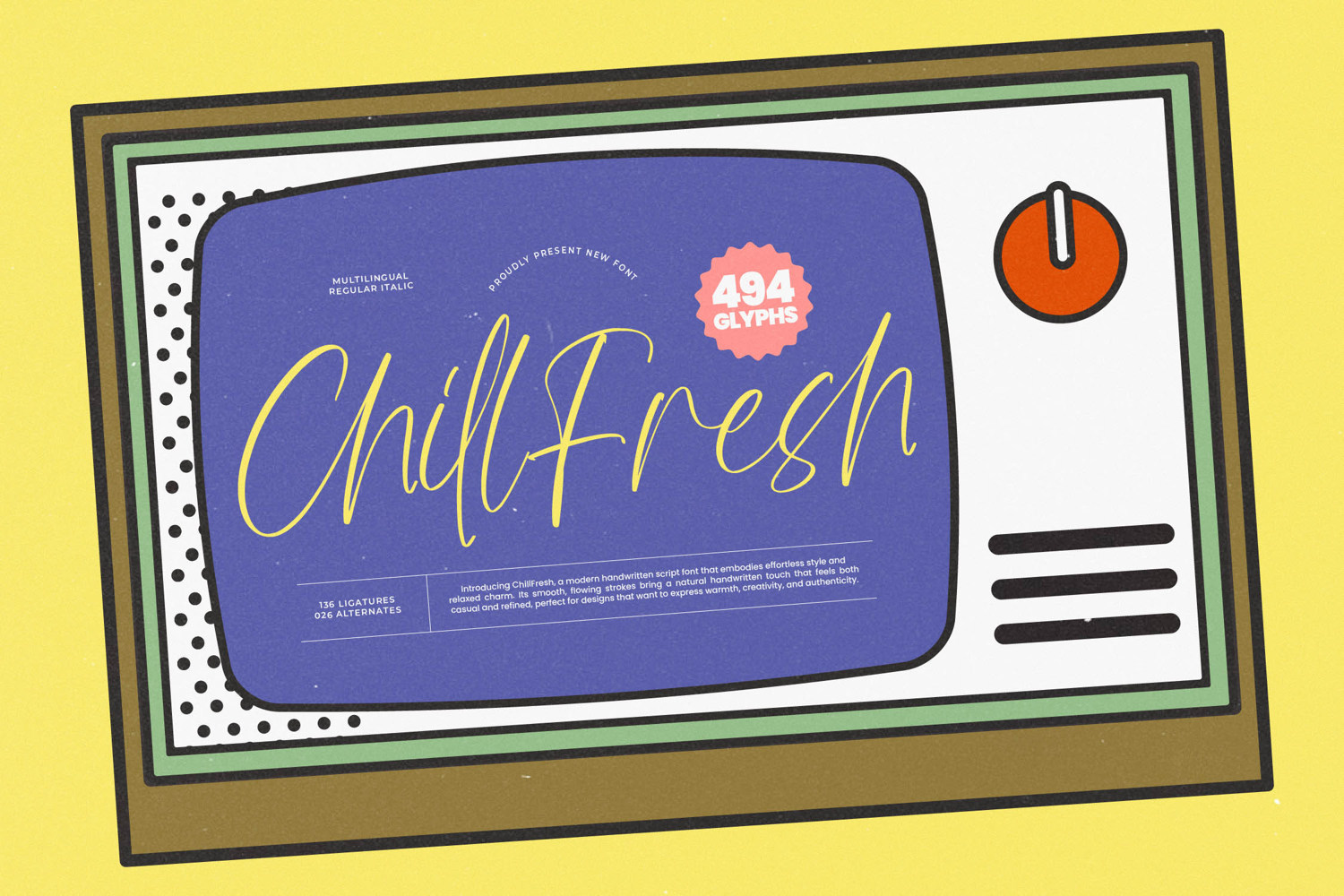
Chill Fresh - Modern Handwritten Font
Maximize creativity with an expansive typographic toolkit. Featuring an impressive set of 494 glyphs, Font Chill Fresh - Modern Handwritten Font Script provides designers with unparalleled customization options. With over 136 unique ligatures and 26 stylistic alternates, you can effortlessly tailor the text to avoid repetition and achieve that bespoke, hand-crafted appearance. This rich feature set ensures maximum control over texture and flow, making it suitable for both short headlines and complex typographic compositions requiring organic variation.